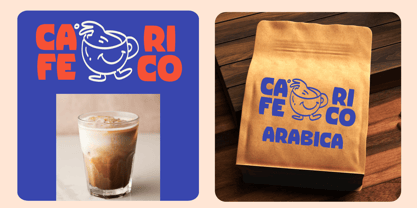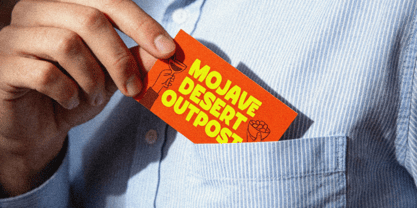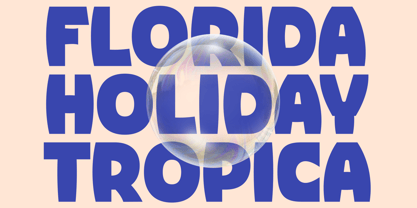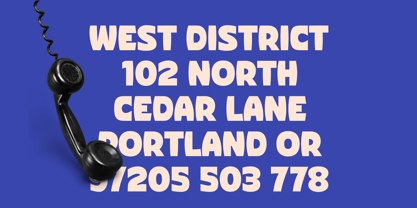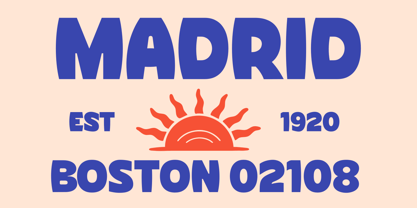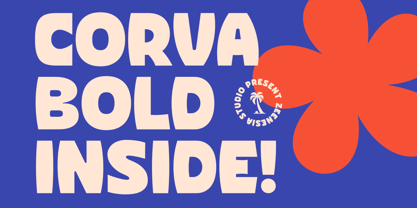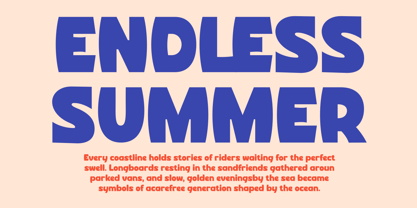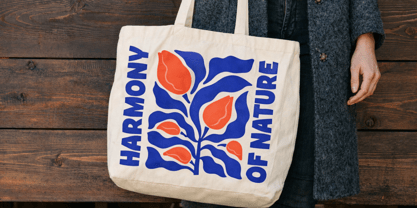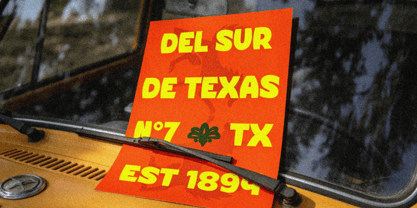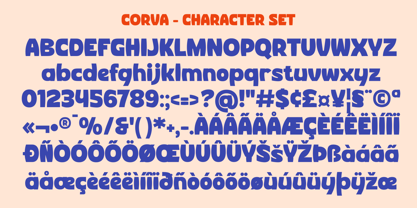
Corva Bold Inside
by Zeenesia Studio
The Corva Bold Inside Font Family was designed by Doni Purwoko and published by Zeenesia Studio. Corva Bold Inside contains 1 styles. More about this family
Corva Bold Inside is a bold display font featuring strong shapes and smooth curves that create a playful yet confident look. Designed to capture attention, it works perfectly for headlines, branding, posters, packaging, and modern design projects. Its chunky letterforms give your typography a bold and energetic personality. Perfect for: • Logos & Branding • Posters & Headlines • Packaging Design • Social Media Graphics • Editorial Layouts
Designers: Doni Purwoko
Foundry: Zeenesia Studio